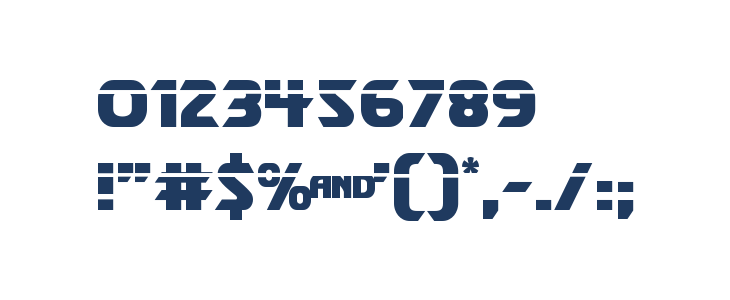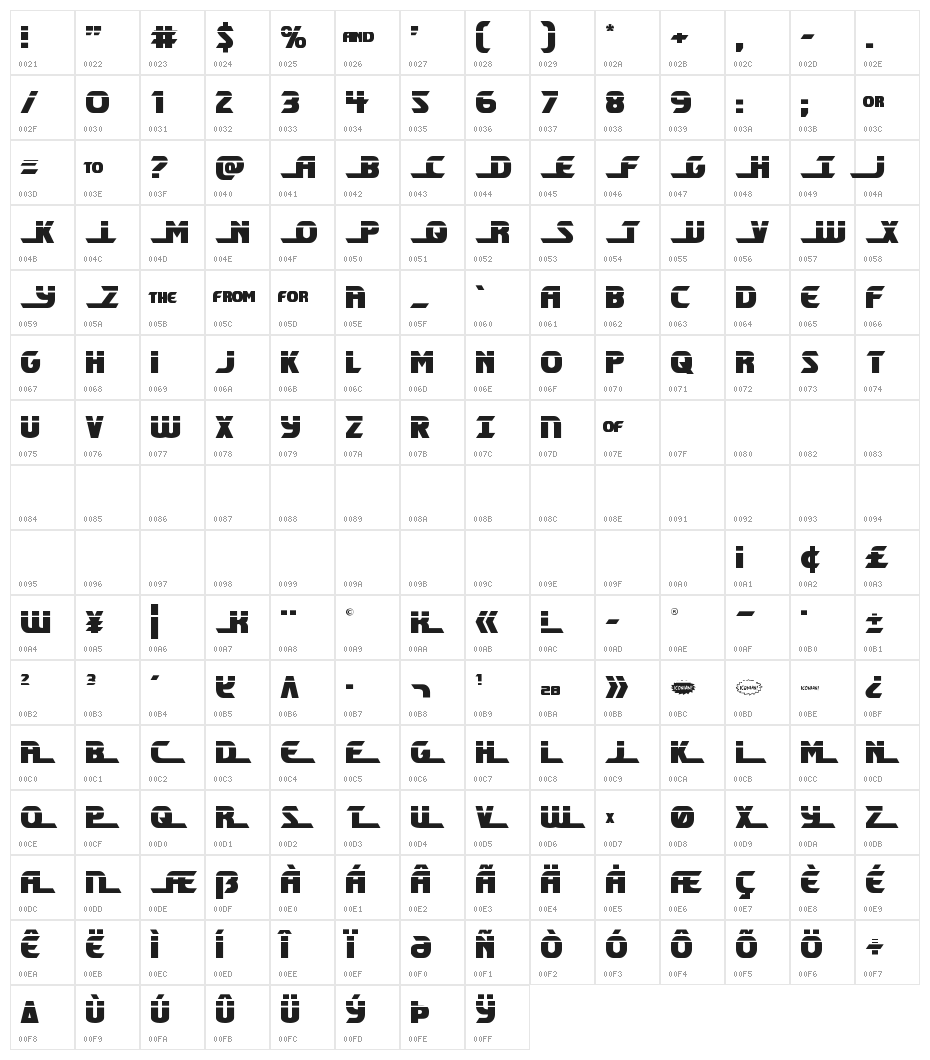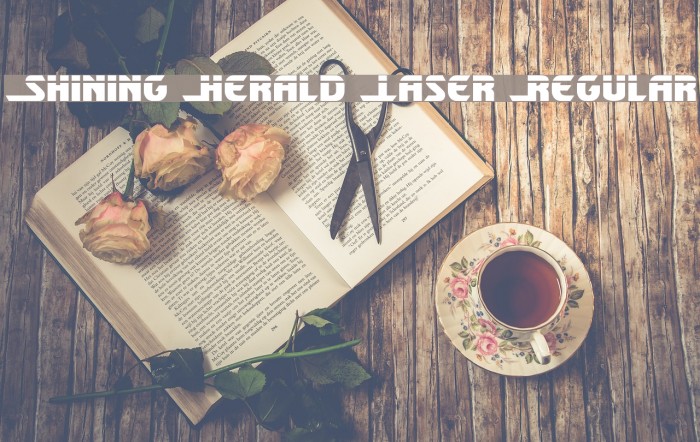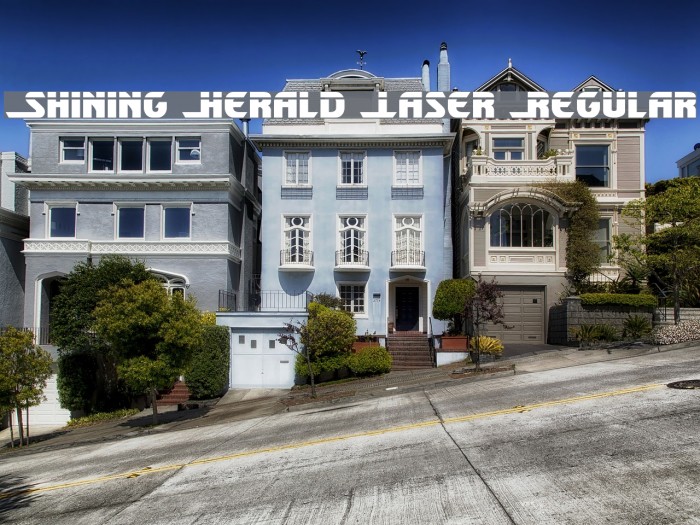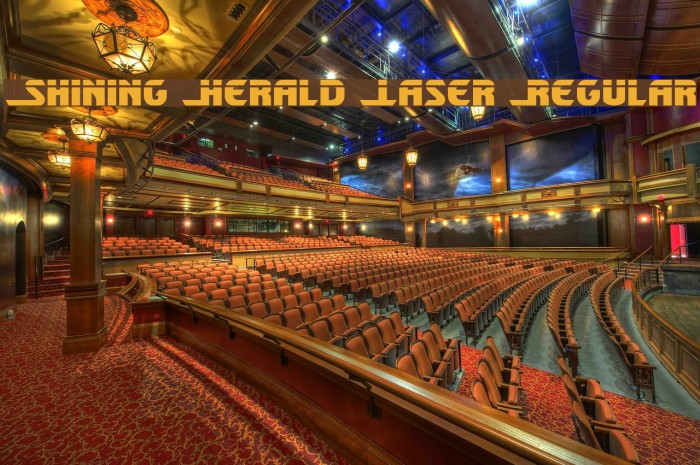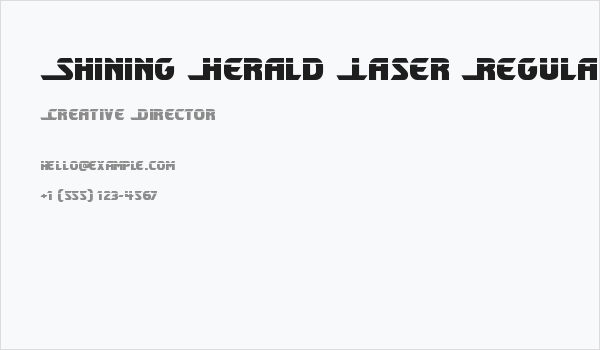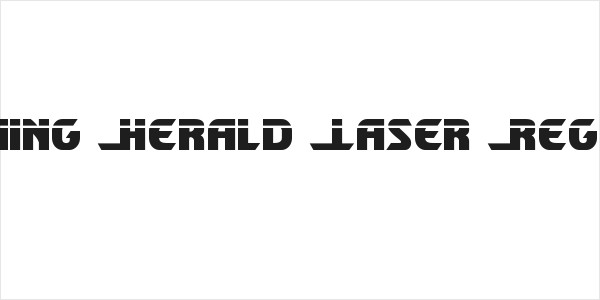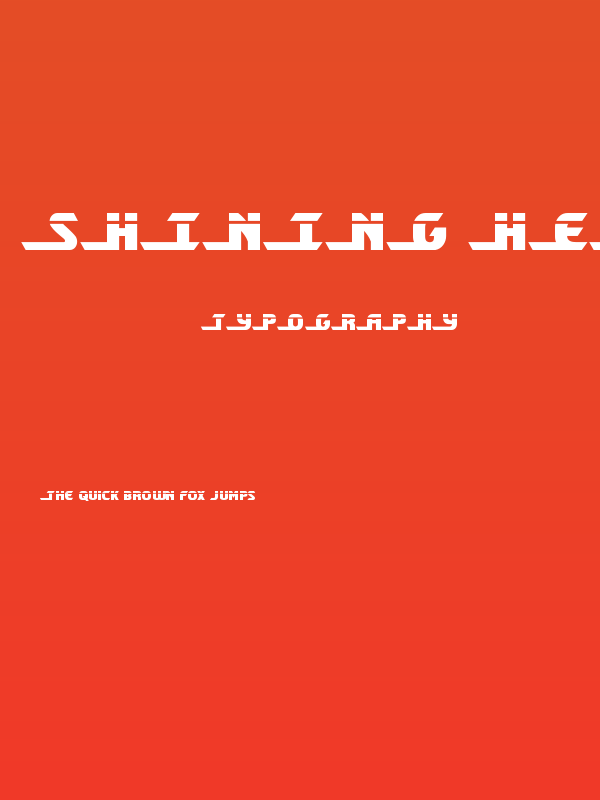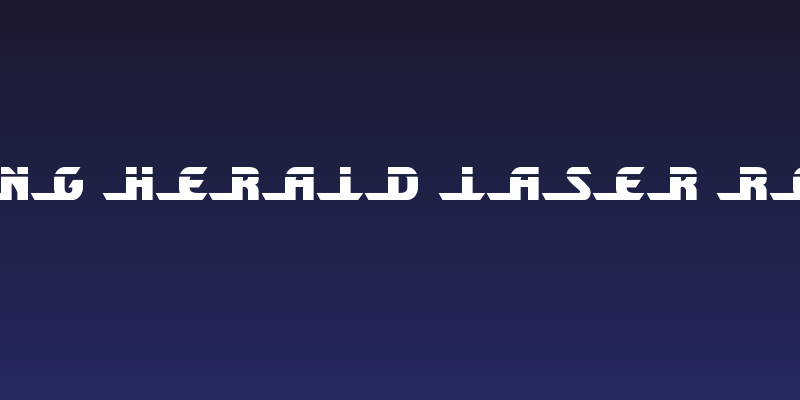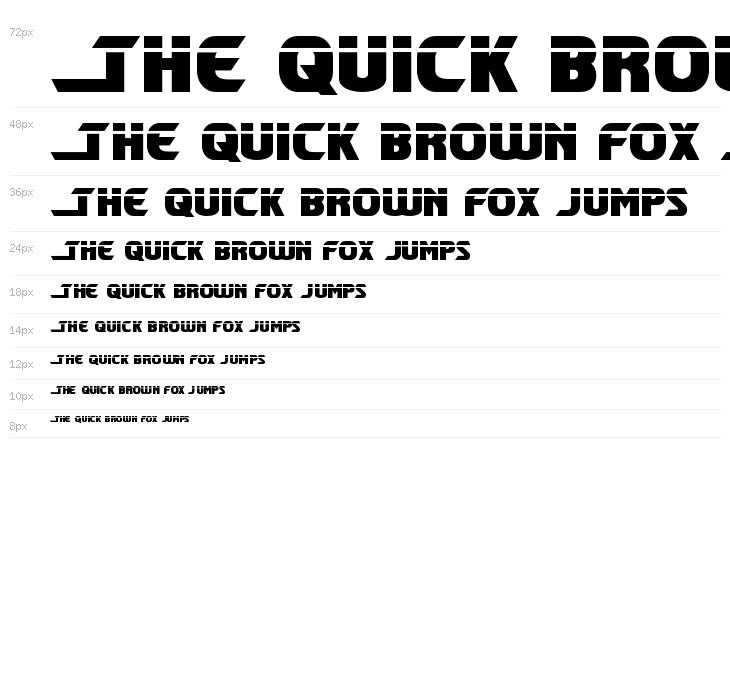
Shining Herald Laser Regular Font
Shining Herald Laser Regular Description
This font features a bold, futuristic design with a strong geometric influence. The characters are constructed with sharp angles and a distinct blocky appearance, giving it a modern and tech-inspired look. The uppercase letters are particularly striking, with a uniform height and width that contribute to its bold presence. The lowercase letters maintain the same stylistic elements, ensuring consistency across the typeface. Numbers and special characters are equally bold and geometric, making them stand out. The font's unique style makes it ideal for projects that require a modern, cutting-edge aesthetic.